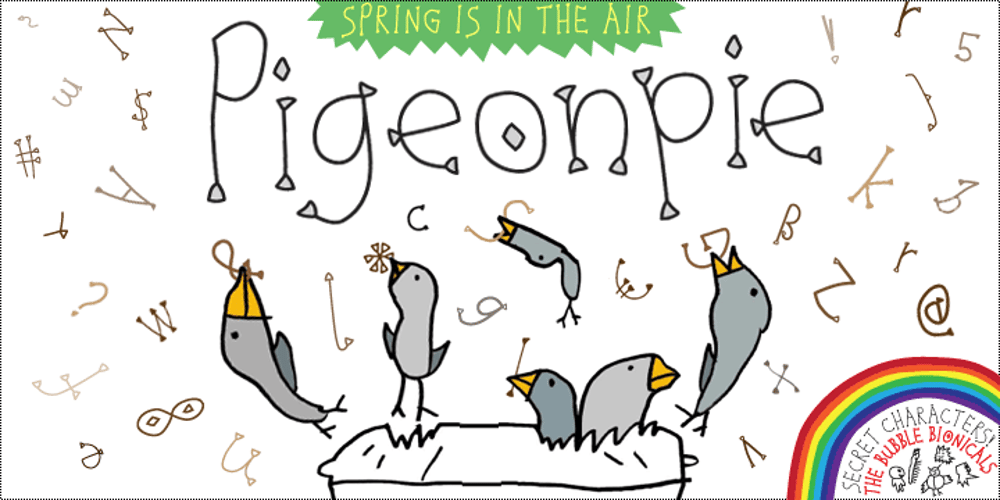
Pigeonpie Font Family was designed by Tim Barnes, Lydia Barnes and published by chicken. Pigeonpie contains 12 styles and family package options. Pigeonpie is the second font created by Tim Barnes’ daughter Lydia, aged 7 at the time, following the success of her debut Picklepie. It’s flighty and unpredictable, with a smile on its face and a spring in its step thanks to sweet little serifs sprouting all over the place.